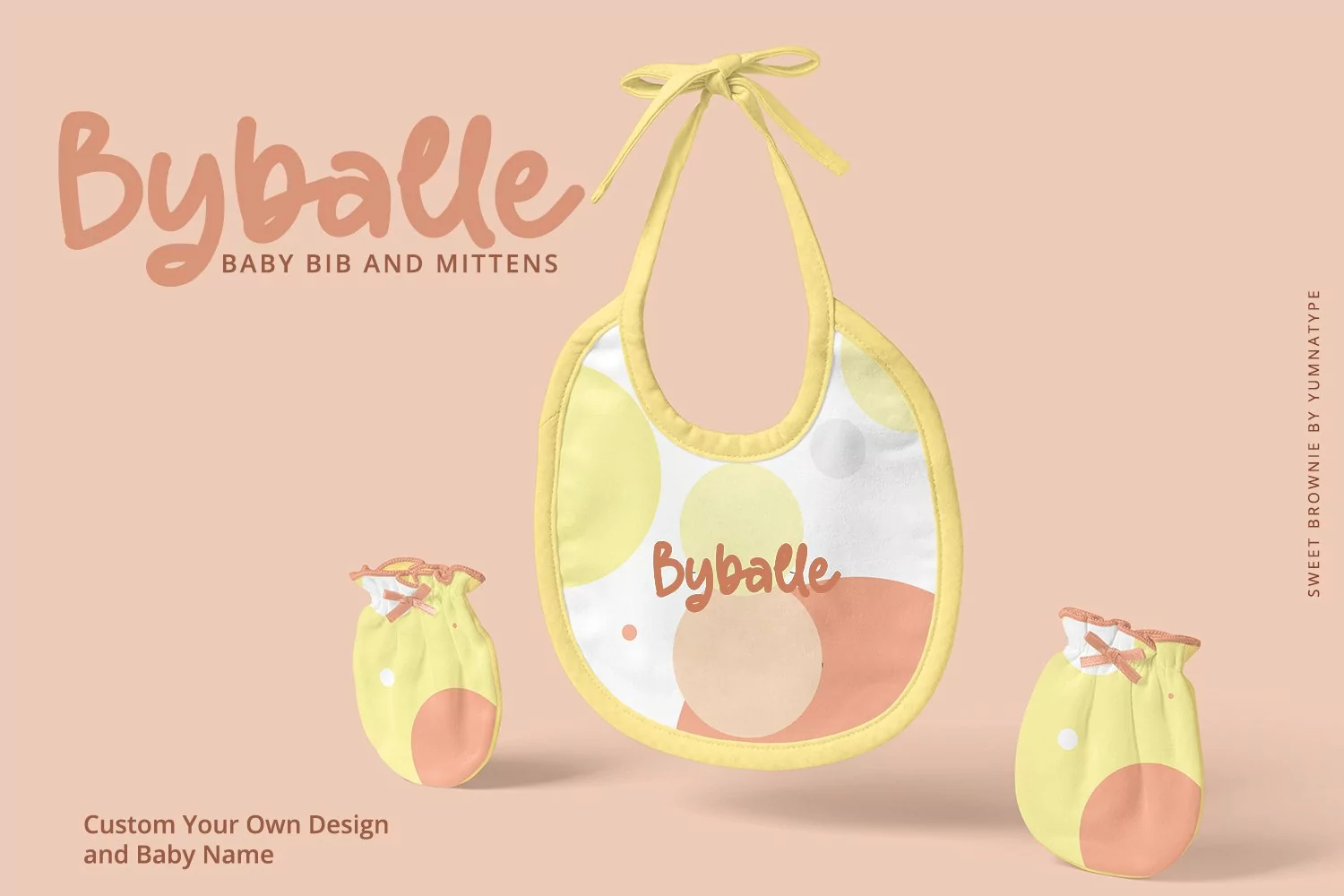
Sweet Brownie is a elegant handwritten font. Made for any professional project branding. It is the best for logos, branding and quotes. Every letter has a unique and beautiful touch.